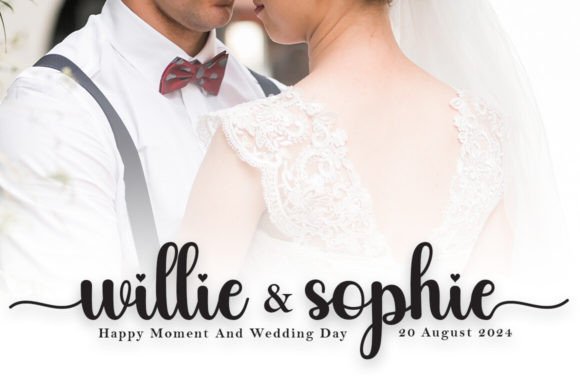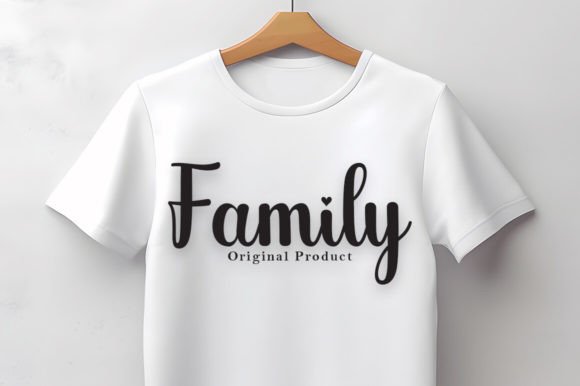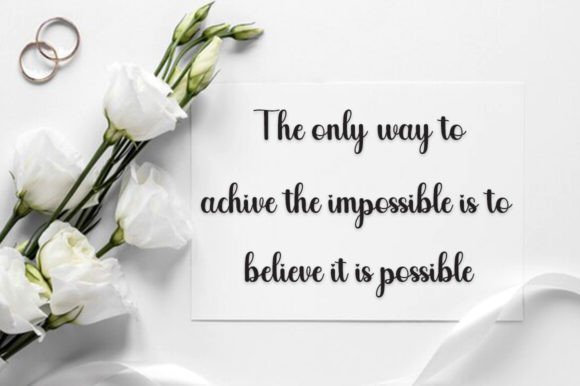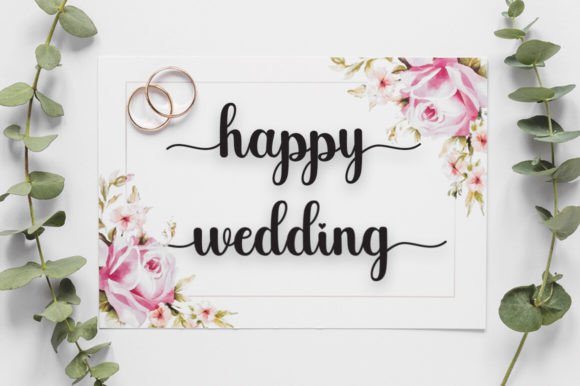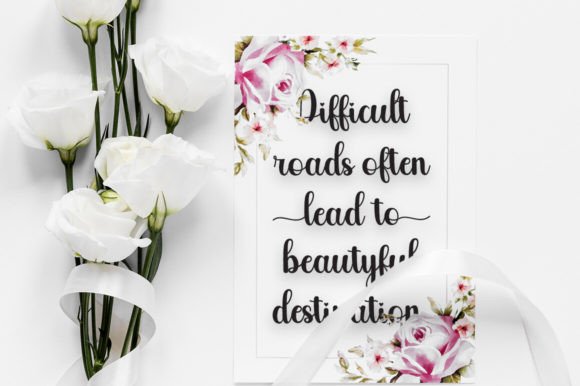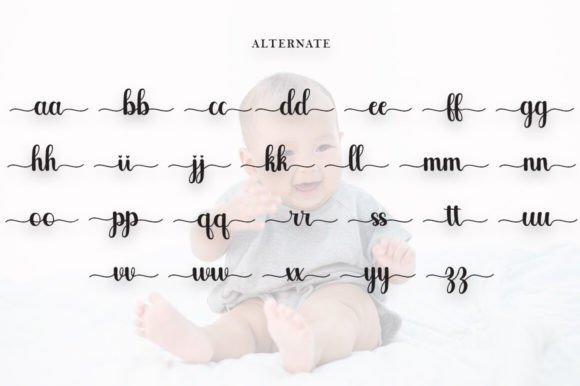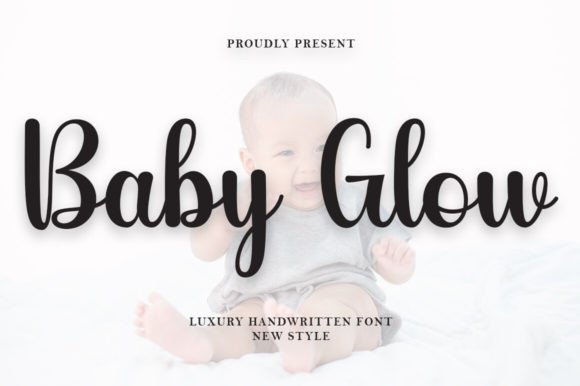
The Perfect Brush Stroke: Unlocking the Magic of Baby Glow Font
Have you ever been brainstorming a design idea, and suddenly, the perfect font pops into your mind? For many designers, this is the moment when creativity strikes, and the project starts to come together. For me, it was when I stumbled upon the enchanting Baby Glow Font – a handwritten masterpiece that elevates any design to new heights.
With its elegant and stylish design, the Baby Glow Font is perfect for adding a personal touch to wedding invitations, thank you cards, quotes, and more. Its versatility makes it a valuable asset for designers, allowing them to create unique and eye-catching designs with ease. As a PUA-encoded font, Baby Glow Font offers seamless access to all glyphs and alternates, making it a dream to work with.
- Font Family: Baby Glow, Baby Glow Outline, Baby Glow Shadow, Baby Glow Glow, Baby Glow Outline Glow
- Unique Characteristics: Hand-drawn design with a soft, glow effect, perfect for creating a warm and inviting atmosphere in designs and graphics
Baby Glow Font Review
As a designer, I’ve had the chance to work with various fonts, and the Baby Glow Font is one that caught my attention. Here’s my honest review.
- Unique aesthetic**: Baby Glow Font has a distinct, whimsical feel that’s perfect for child-related projects, such as nursery decor or kids’ magazines.
- Legibility**: Despite its playful appearance, the font is surprisingly readable, making it suitable for body text as well as headings.
- Customization options**: The font comes in a range of colors and styles, allowing designers to easily tailor it to their project’s needs.
- Limited font sizes**: Baby Glow Font is best used at larger sizes, as it can become pixelated and difficult to read at smaller sizes.
- Not ideal for body text**: While the font is legible, it’s still best used for headings and titles, as it can be overwhelming for extended body text.
Overall, I think Baby Glow Font is a great addition to any designer’s toolkit, especially for projects that require a playful, child-friendly aesthetic. However, it’s essential to be mindful of its limitations and use it thoughtfully to achieve the best results.
Tips for Getting the Most Out of Baby Glow Font
Use Baby Glow Font to add a touch of whimsy and playfulness to your designs. This font is perfect for creating eye-catching titles, headings, and quotes. Experiment with different font sizes and styles to create visual interest.
Baby Glow Font is commonly used in:
- Baby and children’s product branding
- Children’s book covers and illustrations
- Playful advertising and marketing campaigns
Alternatives to Baby Glow Font for Designers
Great Vibes is a modern, elegant script font that can be used for various design projects, including logos, invitations, and titles. It has a similar playful feel to Baby Glow Font but with a more refined and sophisticated look.
Comparison to Baby Glow Font: While Baby Glow Font has a more whimsical and cursive feel, Great Vibes has a more structured and elegant appearance, making it suitable for a wider range of design projects.
Carolyna Pro is a modern script font that is perfect for creating a luxurious and sophisticated look in your designs. It has a flowing, handwritten feel that can be used for titles, headings, and body text.
Comparison to Baby Glow Font: Carolyna Pro has a more polished and refined look compared to Baby Glow Font, making it suitable for high-end design projects, such as luxury branding and advertising.
Alex Brush is a beautiful, elegant script font that can be used for a variety of design projects, including logos, invitations, and titles. It has a flowing, handwritten feel that can add a touch of sophistication to your designs.